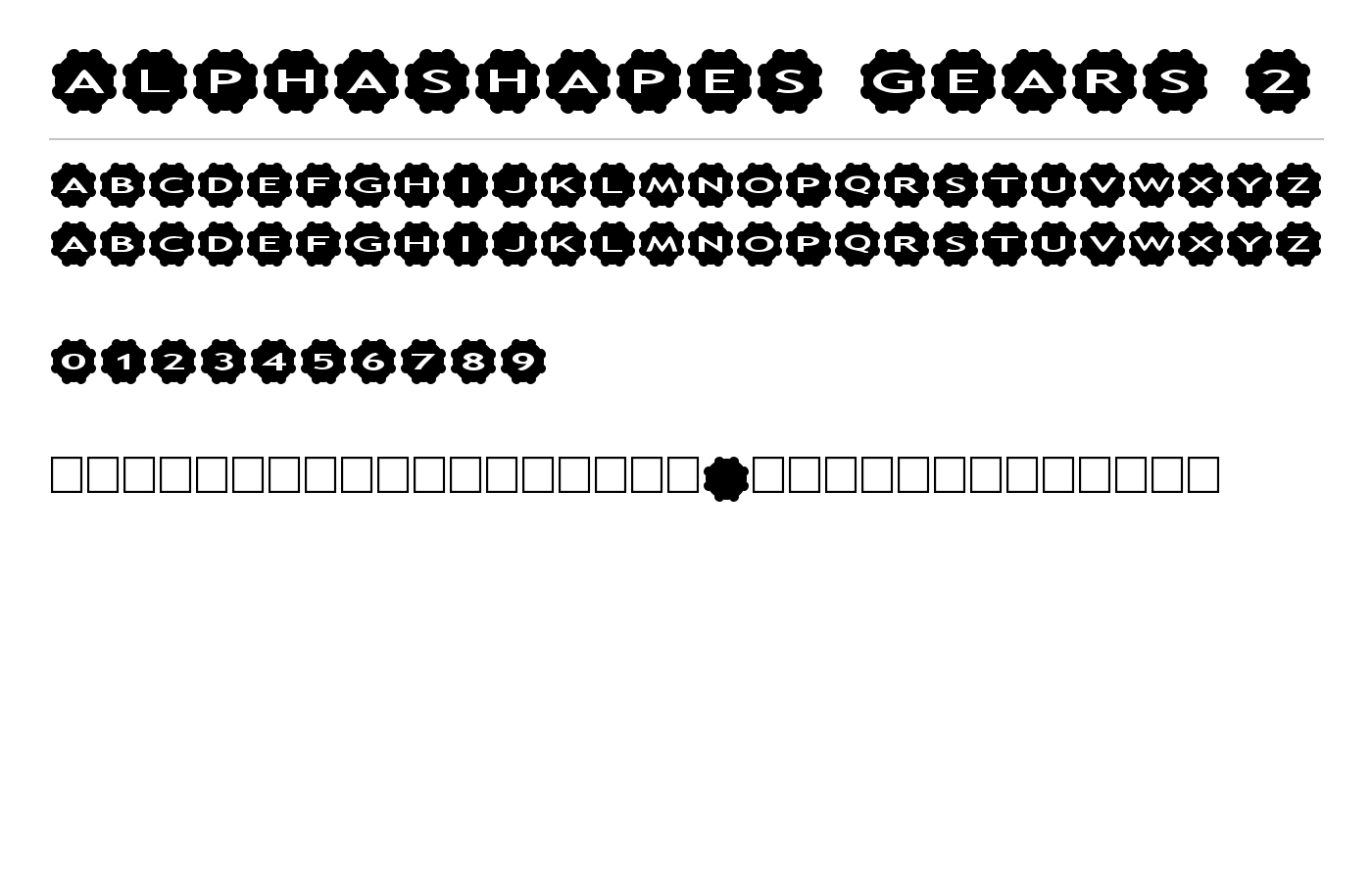
AlphaShapes Gears 2 is a bold, decorative sans serif font characterized by its unique gear-shaped outlines surrounding clean, geometric uppercase letters and numbers. This playful and mechanical-inspired design offers a striking visual impact, making it ideal for logos, posters, or branding projects that seek a fun, industrial, or steampunk vibe. Its quirky style and strong presence work best in display use rather than body text, where it can add personality and attention-grabbing charm.
AlphaShapes gears 2 Font
About AlphaShapes gears 2 Font